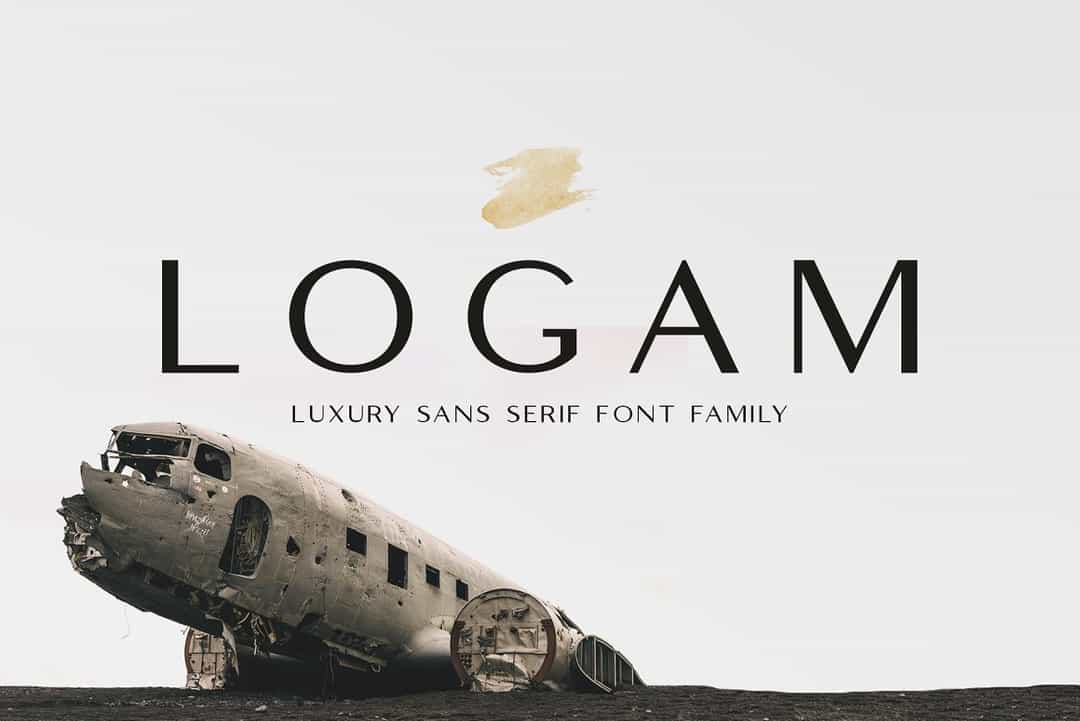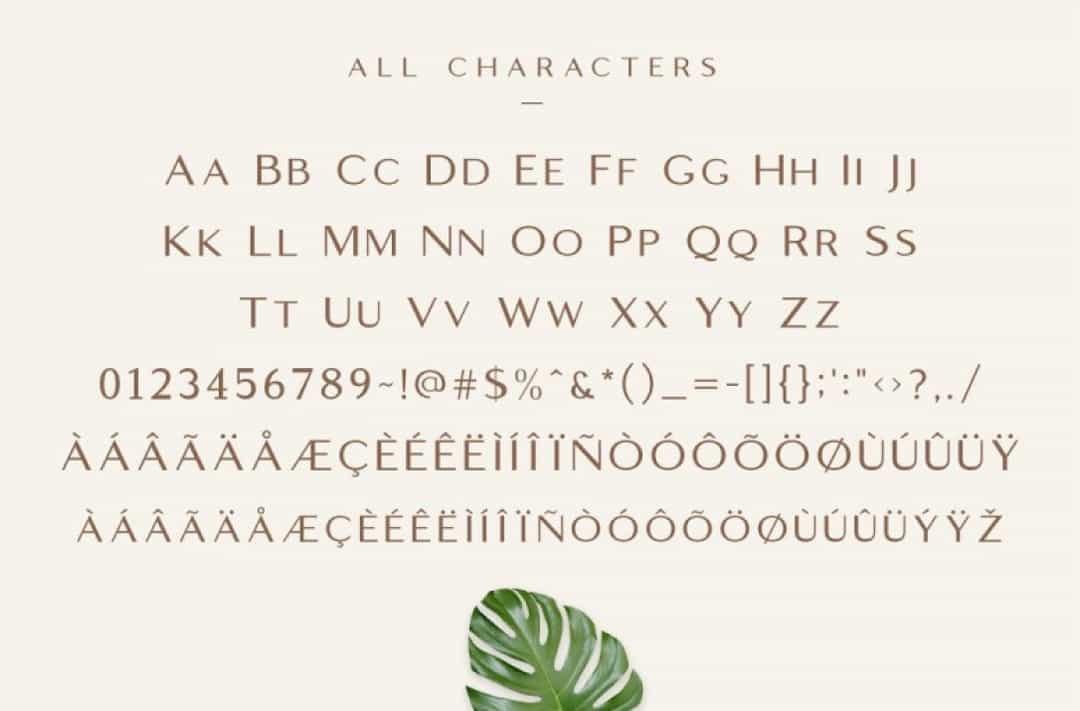
Logam is an elegant sans serif font family that represents contemporary sans serif design. The most notable characteristics in Logam include minimal stroke contrast between strokes, rectangular characters with round forms, and its emphasis on business like simplicity.